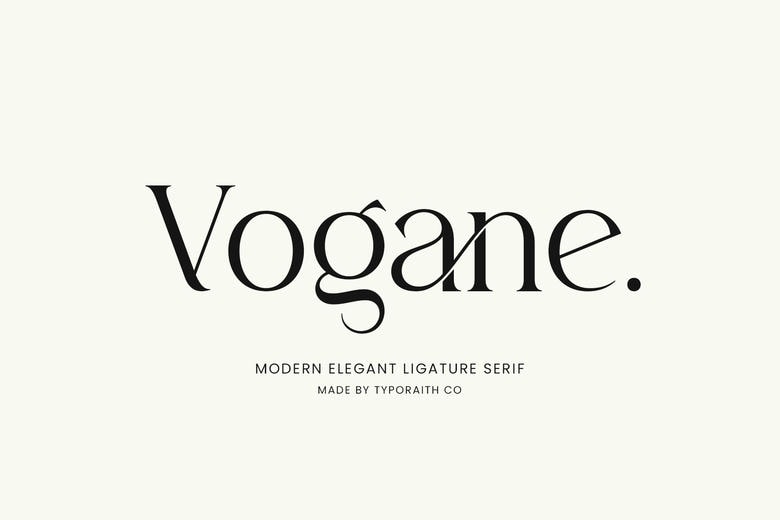
Vogane Font
Vogane is an elegant modern serif typeface yet sophisticated and stylish. The Vogane is developed in sophisticated curves and subtle details, and it adds a classy and eternal look to your designs. It contains glamorous ligatures and alternative characters, which is why this font is suitable in branding, editorial design, logos, invitations, and luxurious packaging.
Vogane is a timeless and contemporary in one package – this is the perfect product to designers who love sophistication in a no-frills manner.
Vogane Serif Font